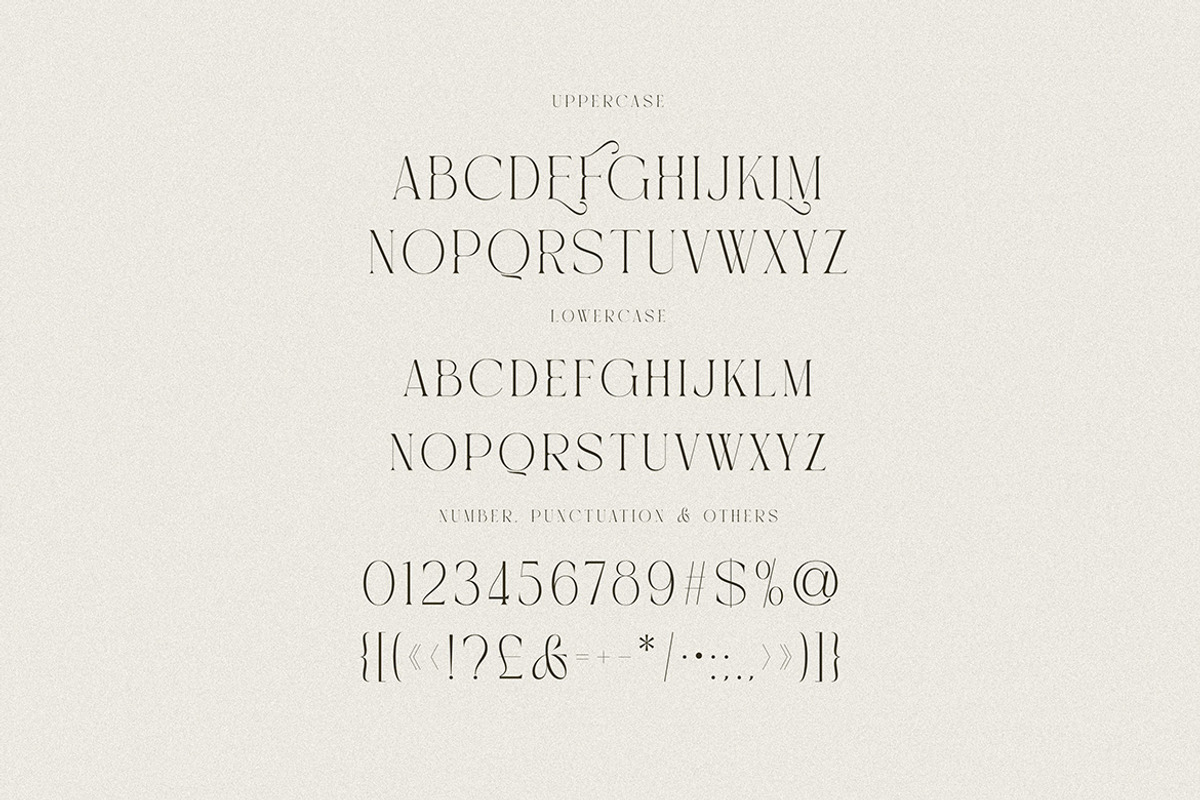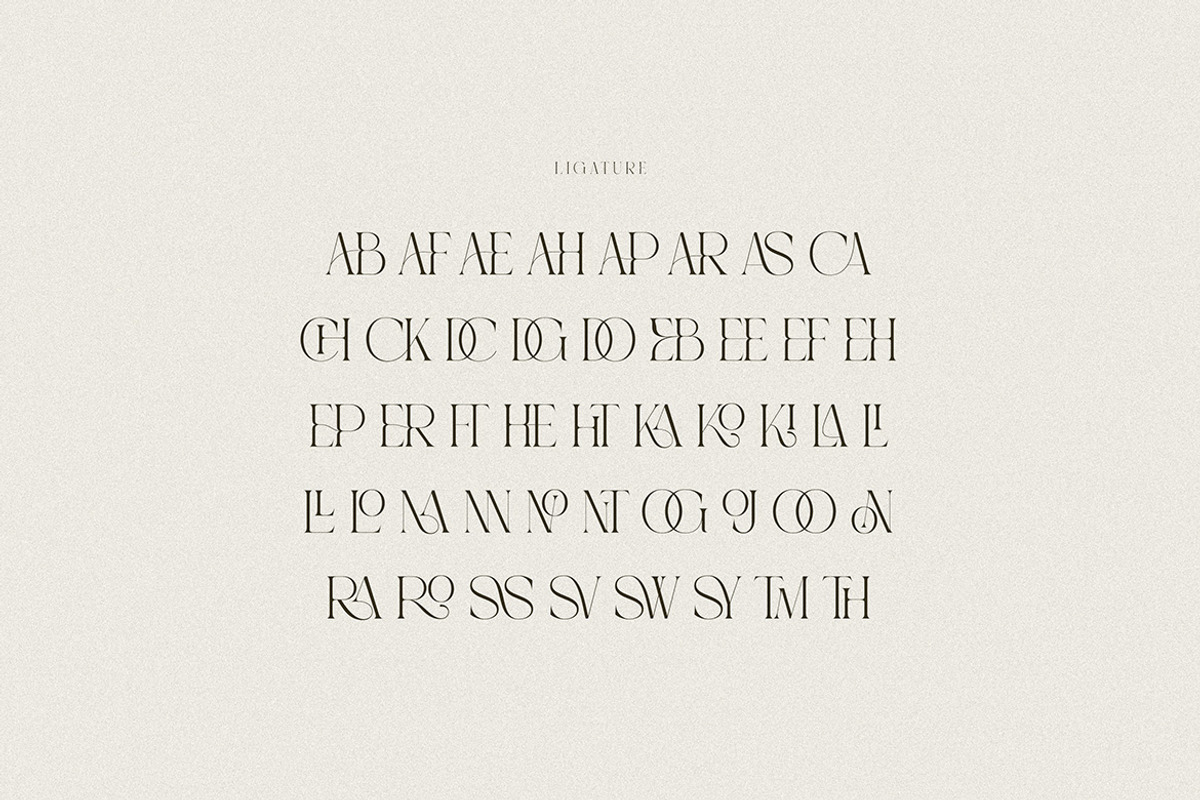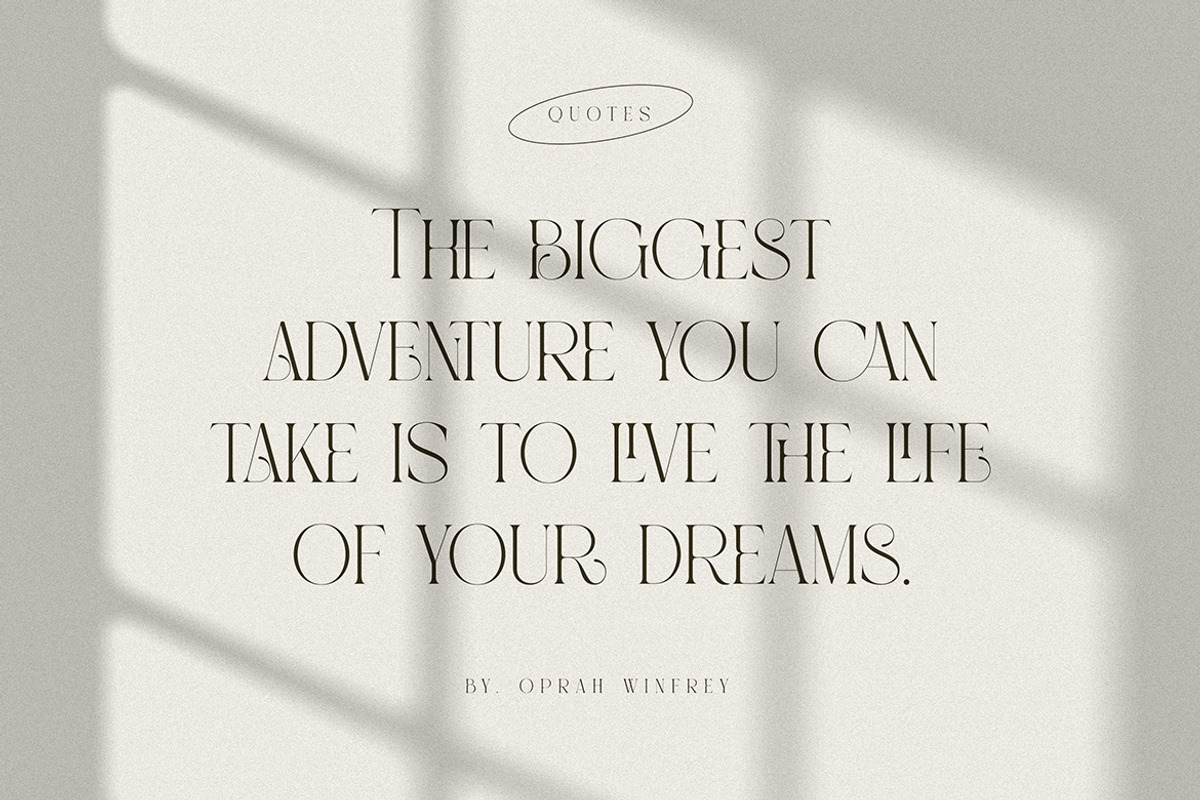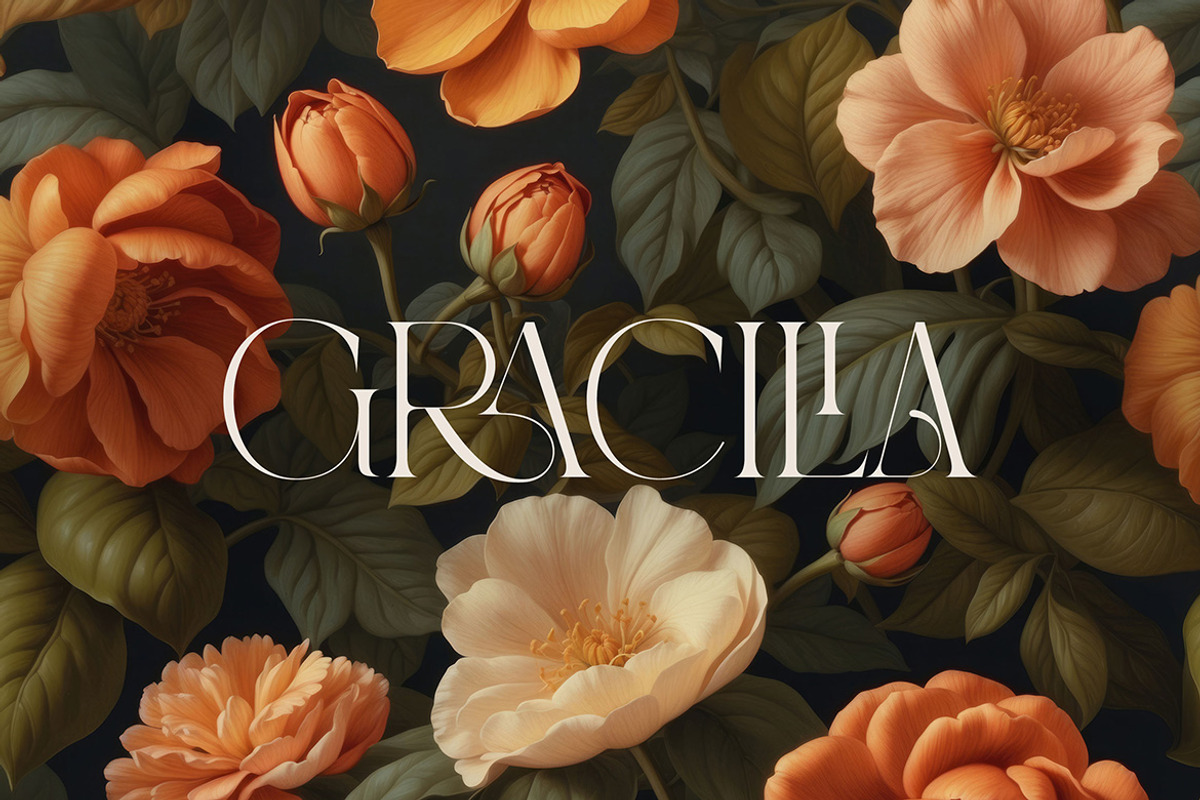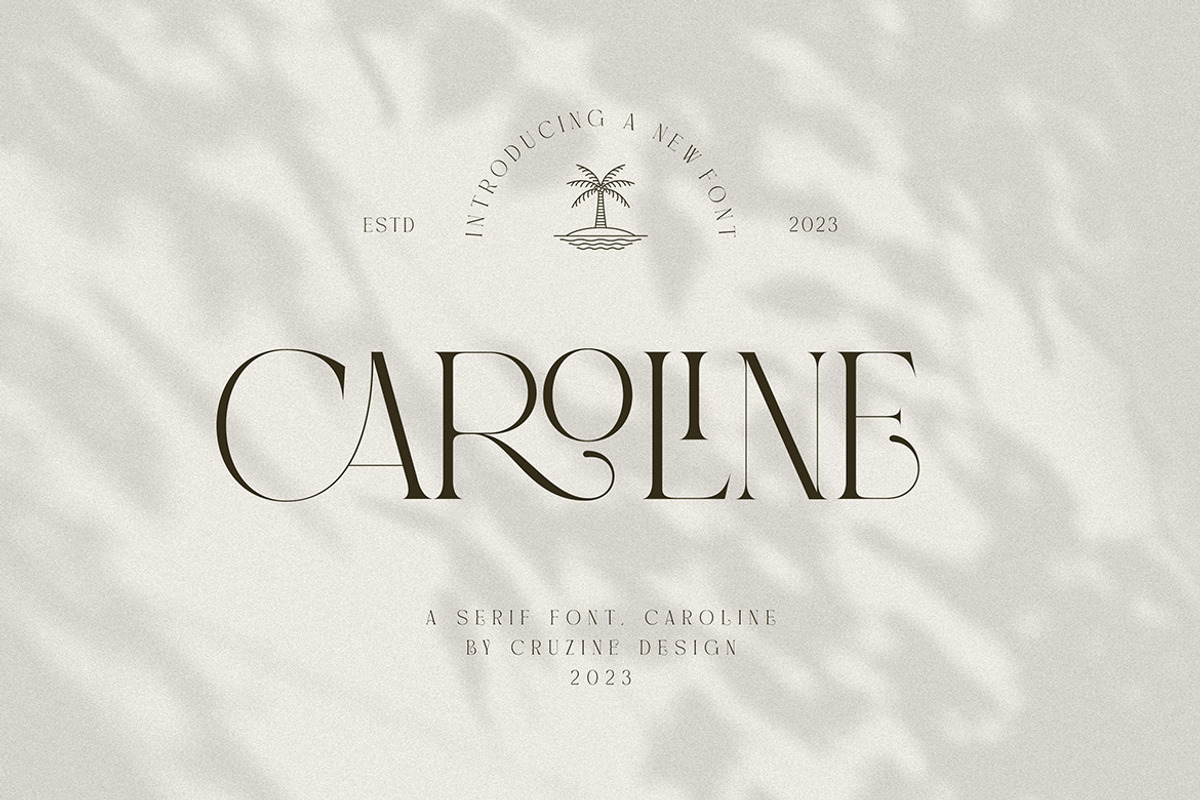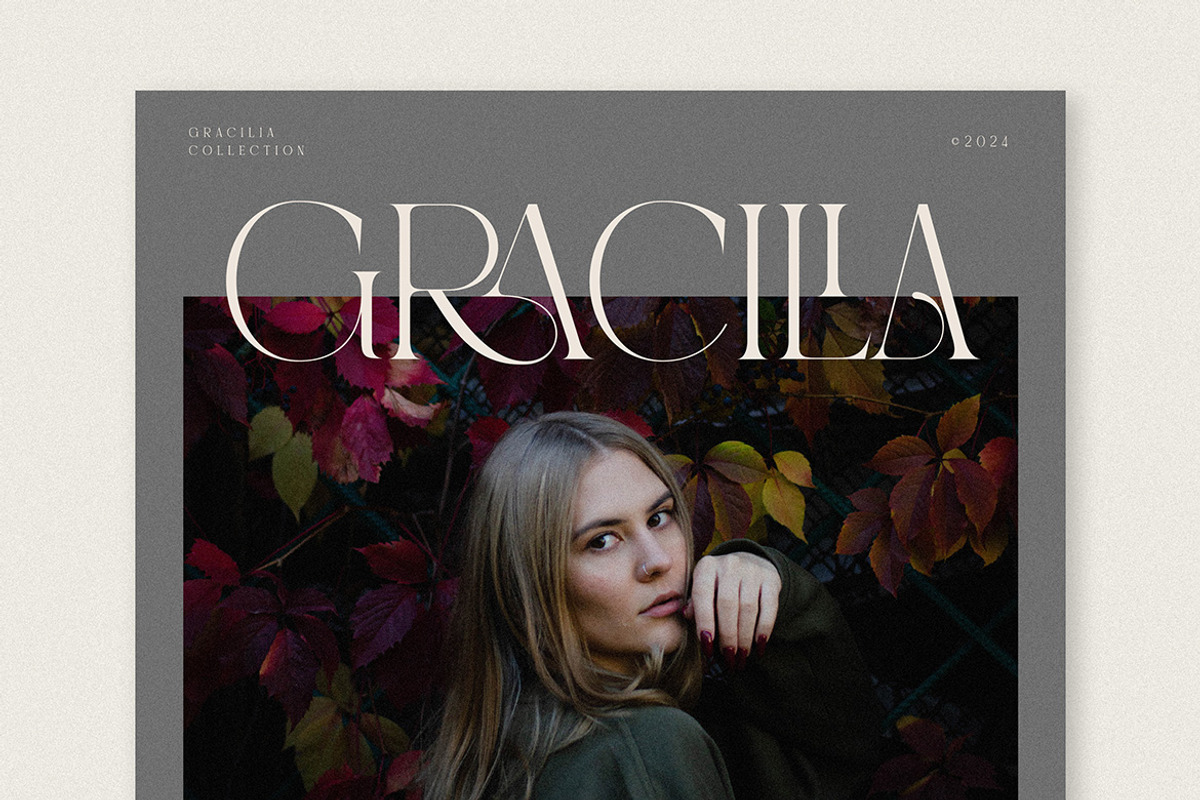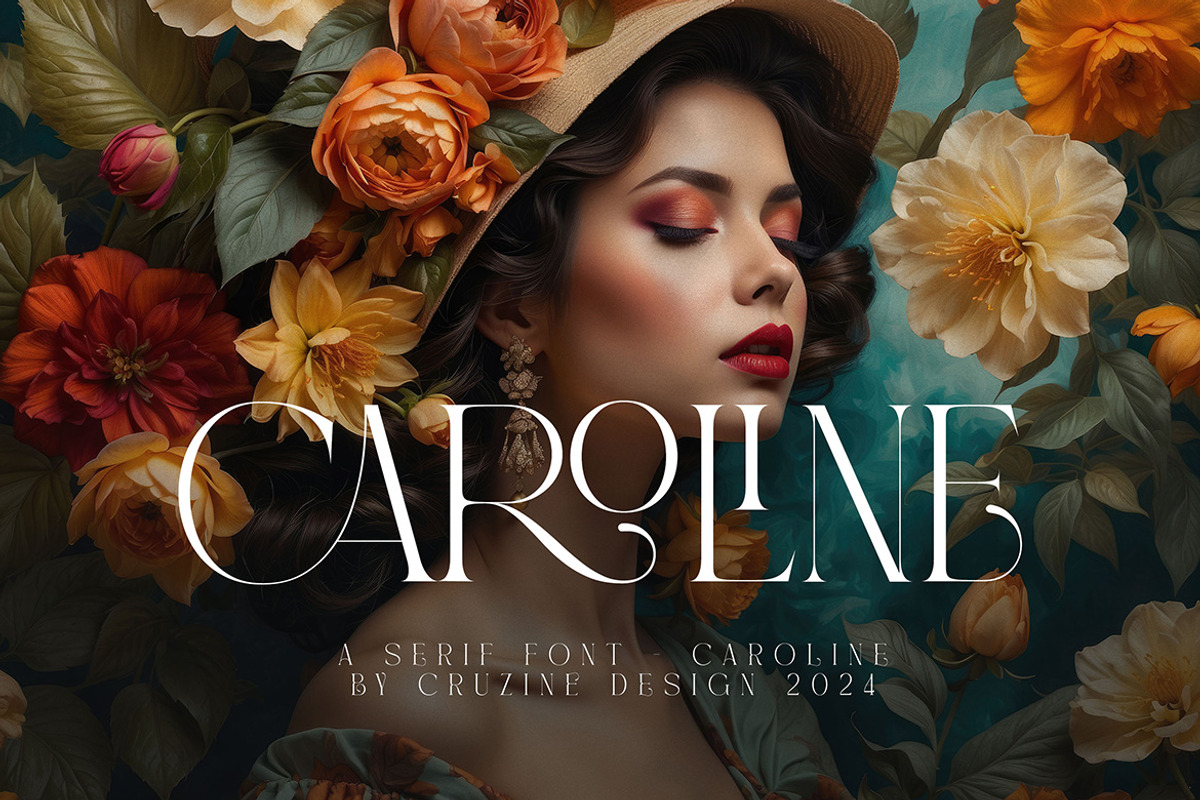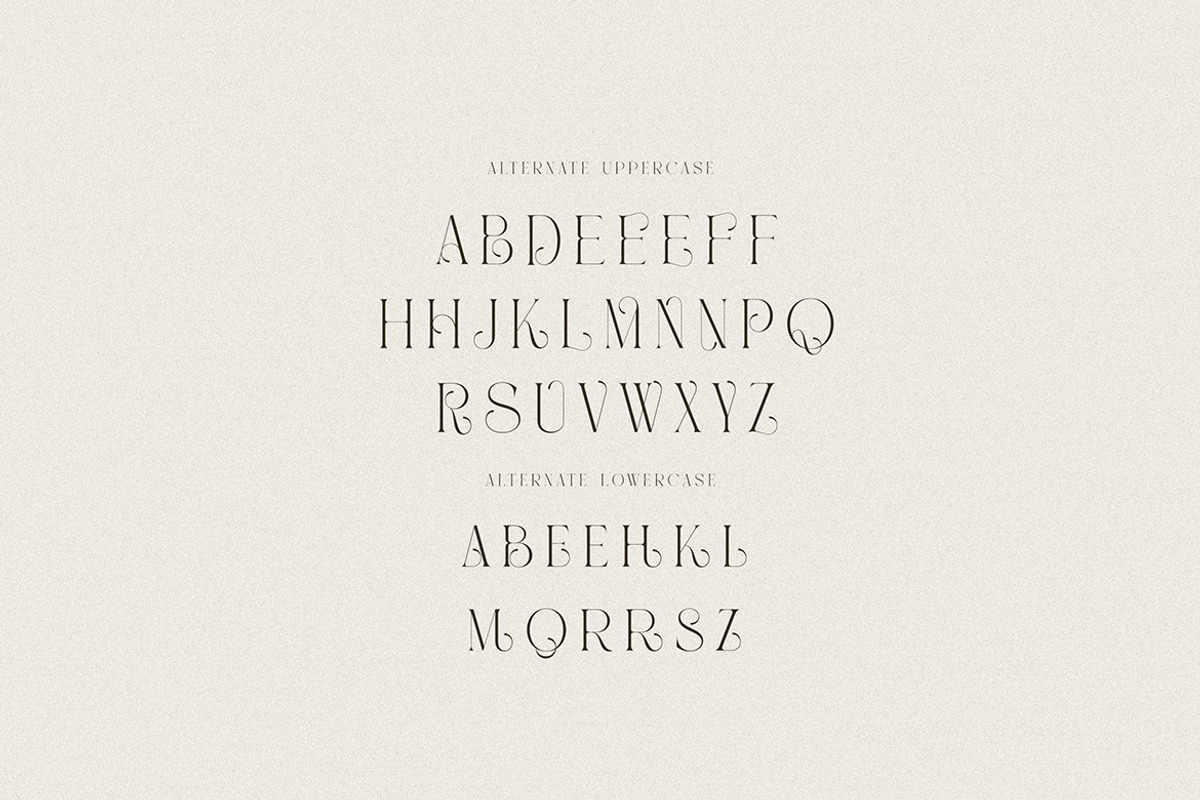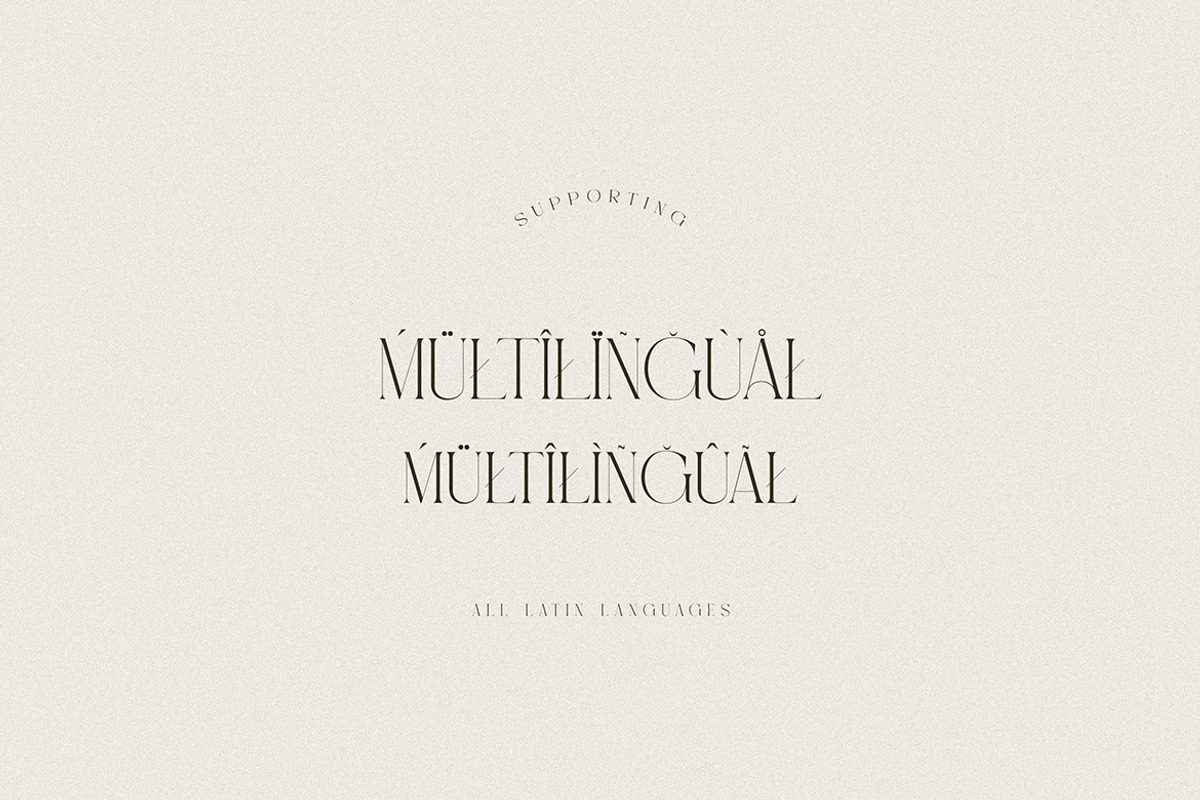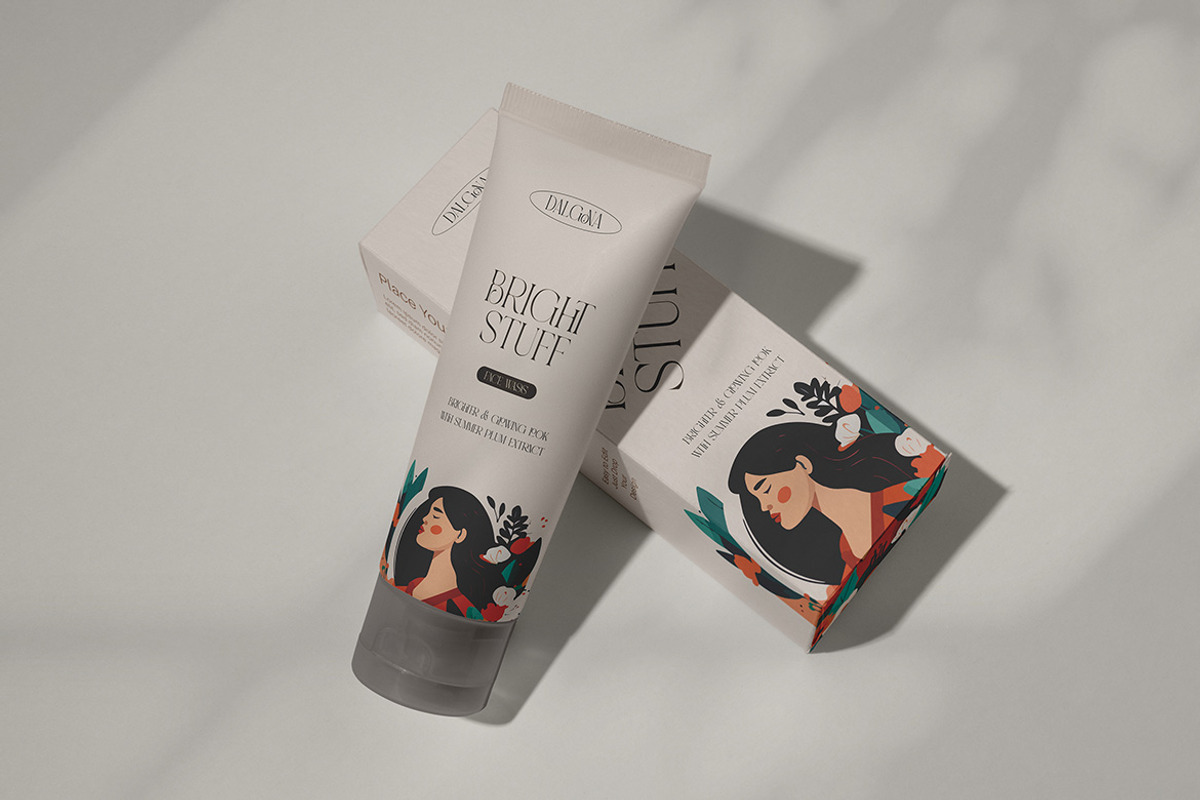
Caroline Luxury Serif
Trendy, elegant, luxury, retro & modern style serif font for your new fancy projects. Stylish, creative and classic style on Caroline font will be great for any modern or classy branding project. Lot of alternates and ligatures will help you to create unique and original logo design or website header! Enjoy :)
- Alternate characters
- Lot of ligatures
- Great for modern branding projects!